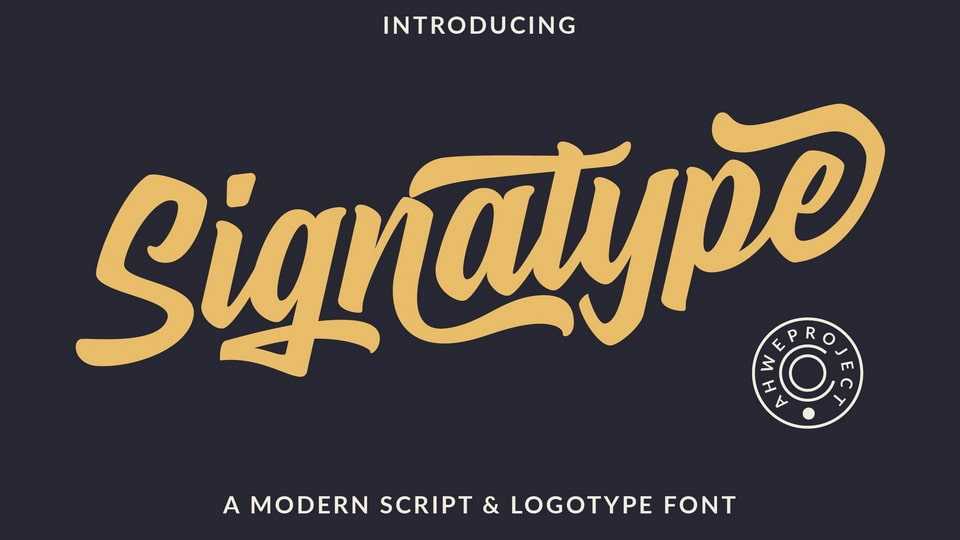
Download Signatype font, a delicate, elegant and flowing handwritten typeface. Signatype has beautiful and well balanced characters and as a result, it matches a wide pool of designs.